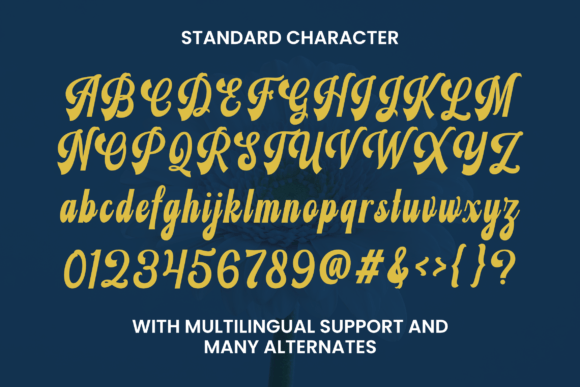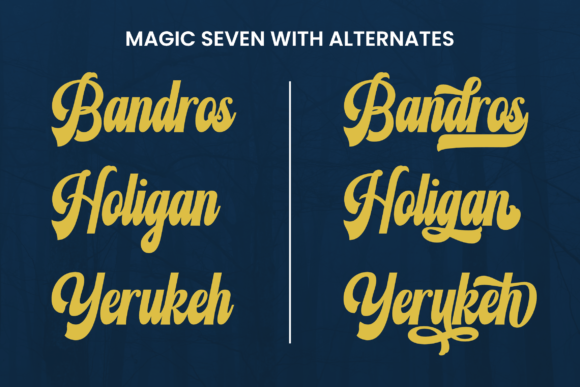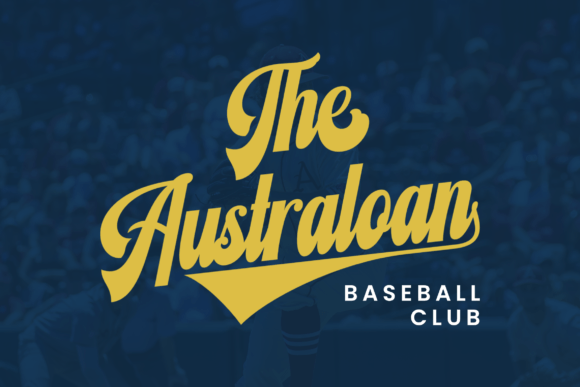
Introduction to Magic Seven Font
Magic Seven is a stunning display script font that seamlessly blends classic and modern design elements to create a unique and stylish typeface.
This font perfectly made to be applied especially in logo, and the other various formal forms such as invitations, labels, logos, magazines, books, greeting / wedding cards, packaging, fashion, make up, stationery, novels, labels or any type of advertising purpose .
Key Features of Magic Seven Font
Why Choose Magic Seven Font?
Magic Seven Font offers exceptional quality and versatility, making it a valuable addition to your design toolkit. Whether you’re creating for personal projects or commercial use, Magic Seven Font delivers professional results.